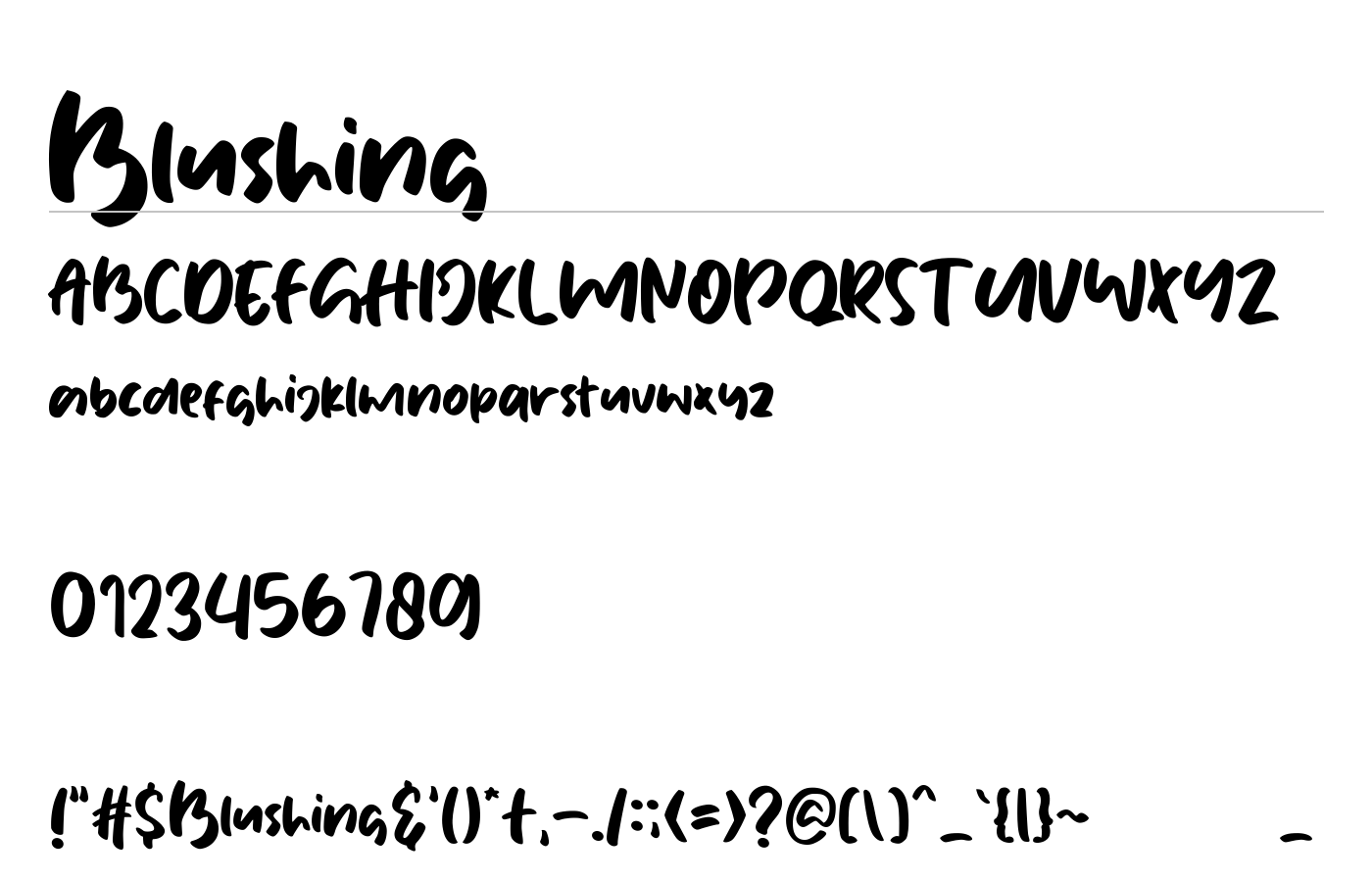
Blushing Font is a lively, bold script typeface with a friendly, hand-painted feel that brings personality and warmth to any design. Its thick, rounded strokes and casual letterforms make it perfect for playful branding, social media graphics, and creative packaging where an approachable and energetic look is needed. This font shines in headlines and logos, adding a personal touch that engages and invites viewers.
Blushing Font
About Blushing Font